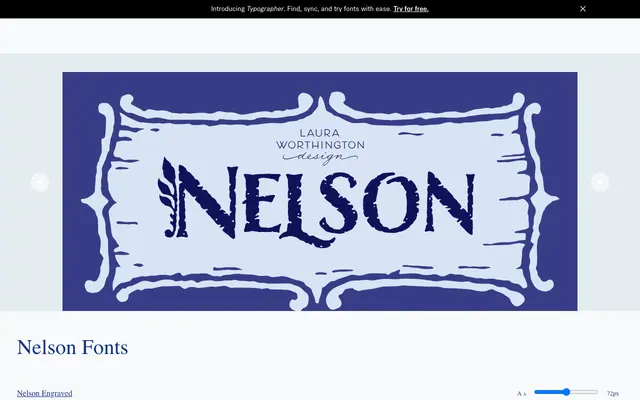
Nelson
A capitals-first display family evoking painted and engraved wood signage of the American Old West, offered in four stylistic variants.
Nelson draws on the visual language of weathered wood and hand-painted lettering, producing confident all-caps letterforms suited to wordmarks, food packaging and large-format signage. The family ships in four variants: Engraved, Ornaments, Rugged and Bold, with four optically-optimised size grades. OpenType swashes, alternates and ornaments are coded for access without specialist software.
Nelson is a capitals-focused display family evoking painted wood signage and Old West lettering, with engraved, ornamental, rugged and bold variants designed for large-scale use.